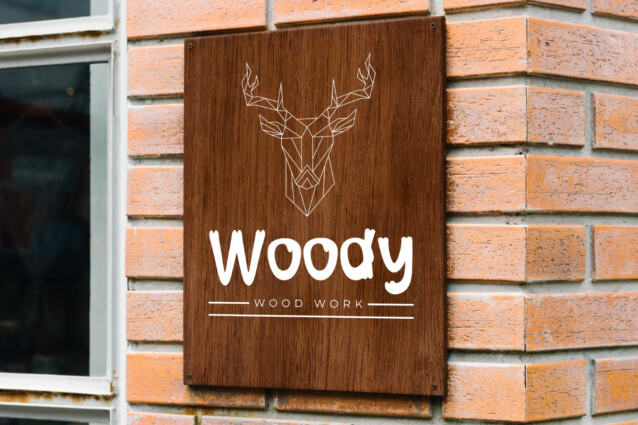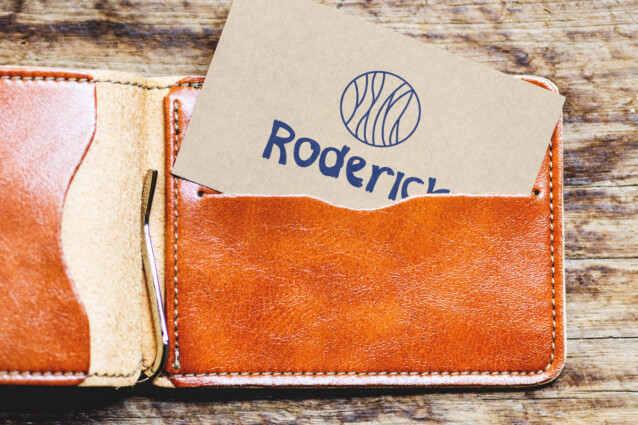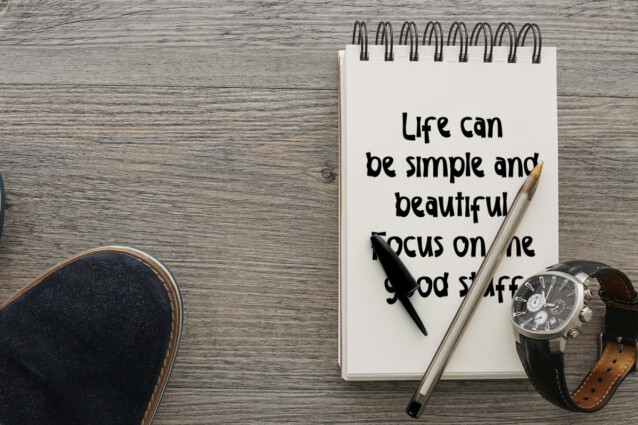
Wood Plant Font
Wood Plant Font is a retro themed font with wood edges style. The font takes on the theme of nature, namely wood plants. It will be able to make whatever your design looks cool, such as apps, badge, billboard, brand logo, brochure, business card, catalog, cover, embossed design, flyer, header, invitation, label, magazine catalog, mockup design, poster, product design, quote, screen print, signage, social media posts, stationery, sticker, title, website, and any projects.